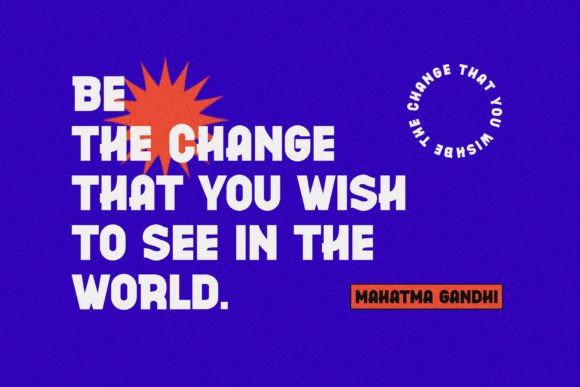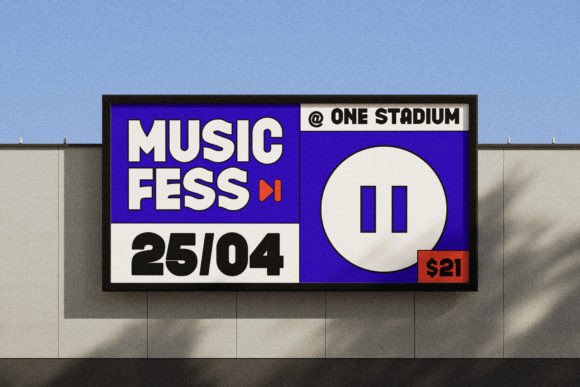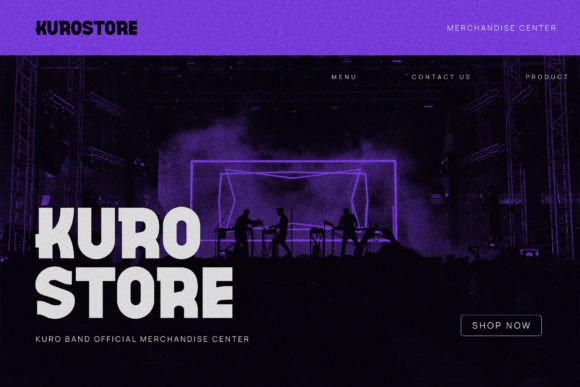
Introduction to Moste Font
Moste is inspired by the famous minimalist logo perfect for the purposes of designing templates, brochures, videos, advertising branding, logos, invitations, layout designs, elegant crafting, beauty design, and other.
Key Features of Moste Font
Why Choose Moste Font?
Moste Font offers exceptional quality and versatility, making it a valuable addition to your design toolkit. Whether you’re creating for personal projects or commercial use, Moste Font delivers professional results.